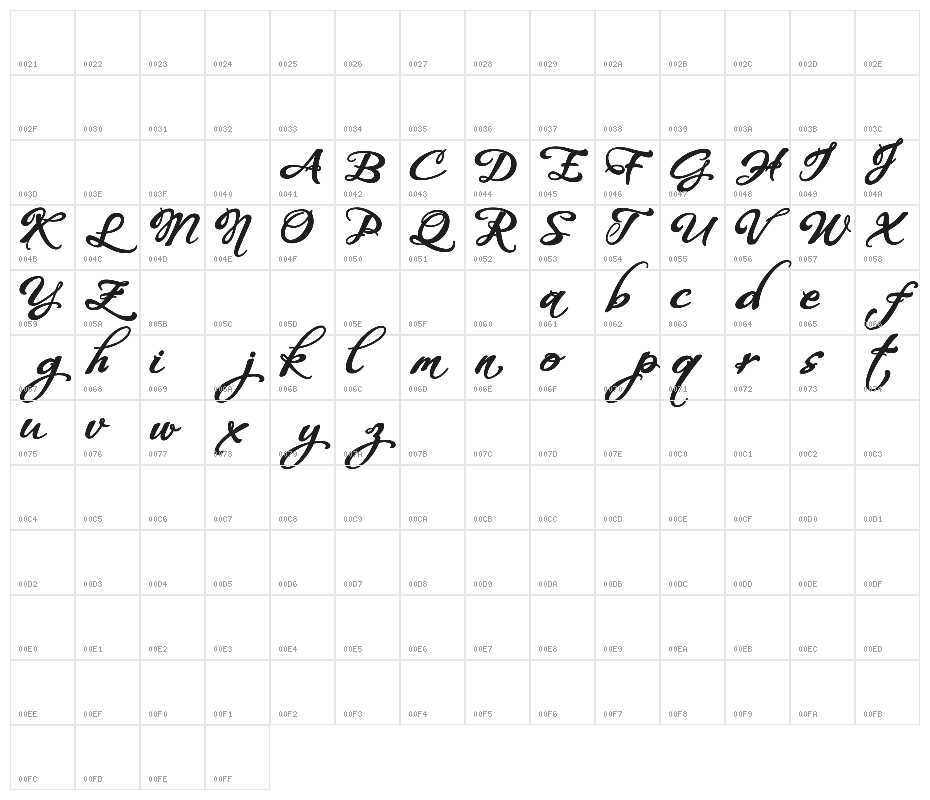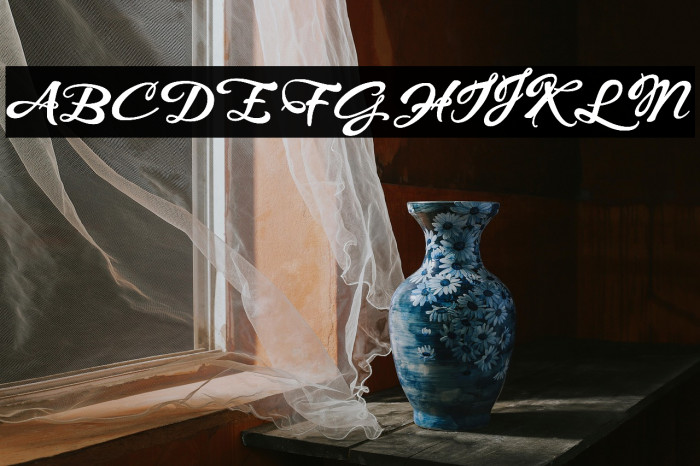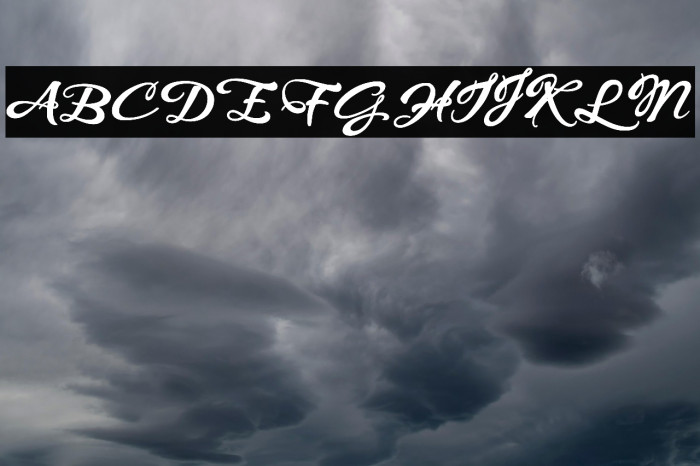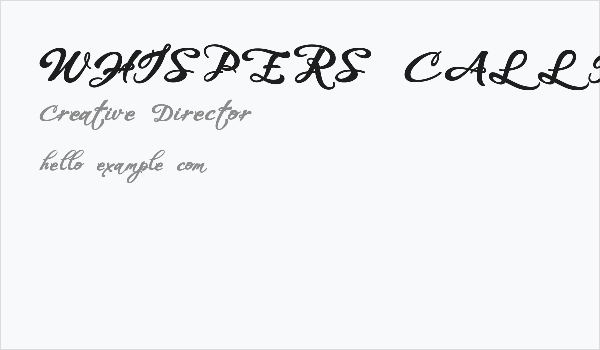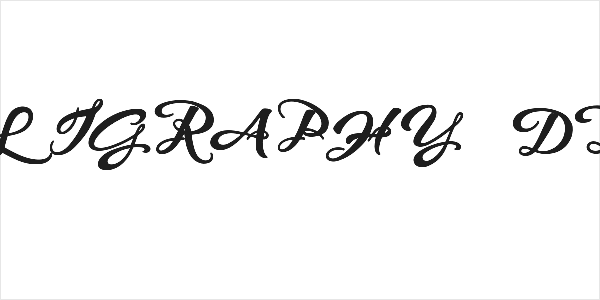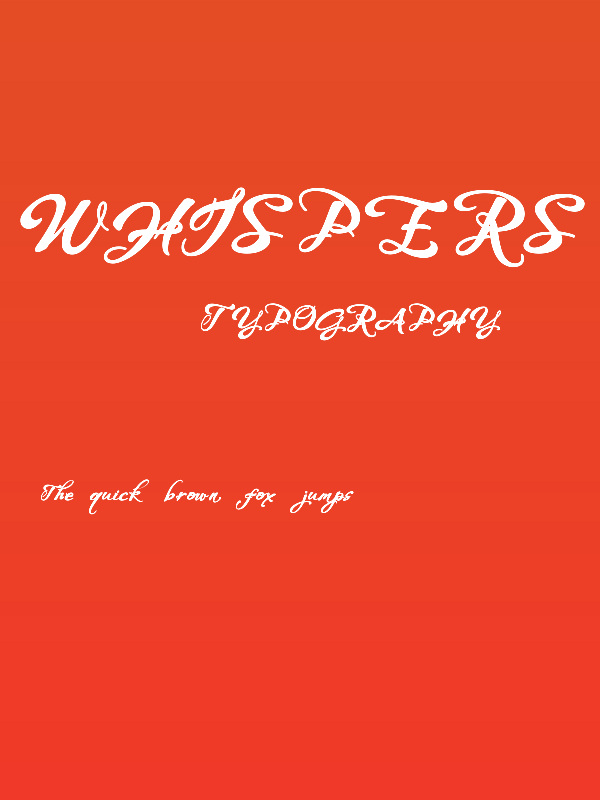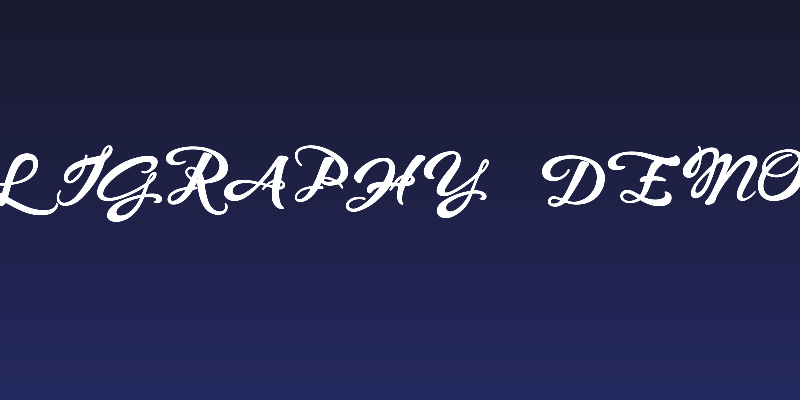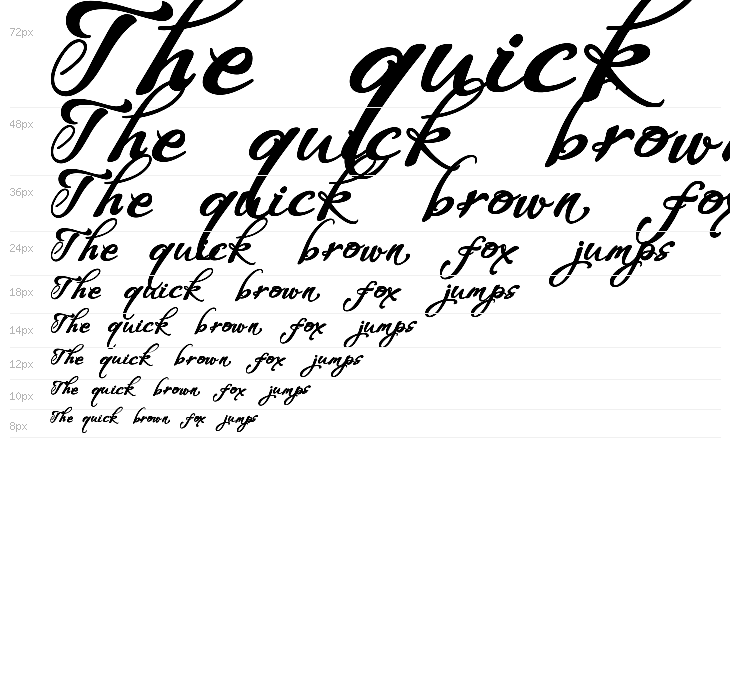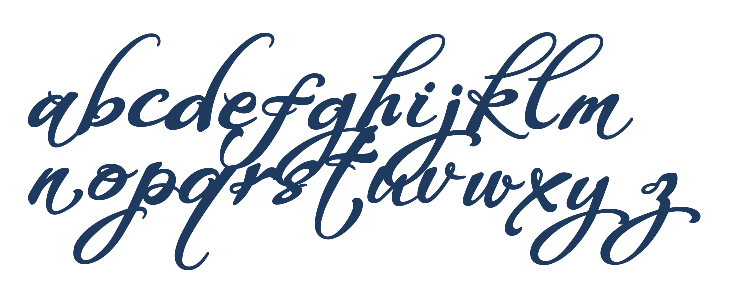
WHISPERS CALLIGRAPHY_DEMO_sinuous_BOLD Font
WHISPERS CALLIGRAPHY_DEMO_sinuous_BOLD Description
This font exudes elegance and sophistication with its flowing, cursive style. The letters are intricately designed with sweeping curves and flourishes, creating a sense of movement and grace. The uppercase letters are particularly ornate, featuring elaborate loops and swirls that add a touch of drama. The lowercase letters maintain the same fluidity, with a slightly more restrained design that ensures readability. The bold weight of the font enhances its presence, making it suitable for impactful statements. The overall design is reminiscent of traditional calligraphy, yet it maintains a modern sensibility that makes it versatile for various applications.